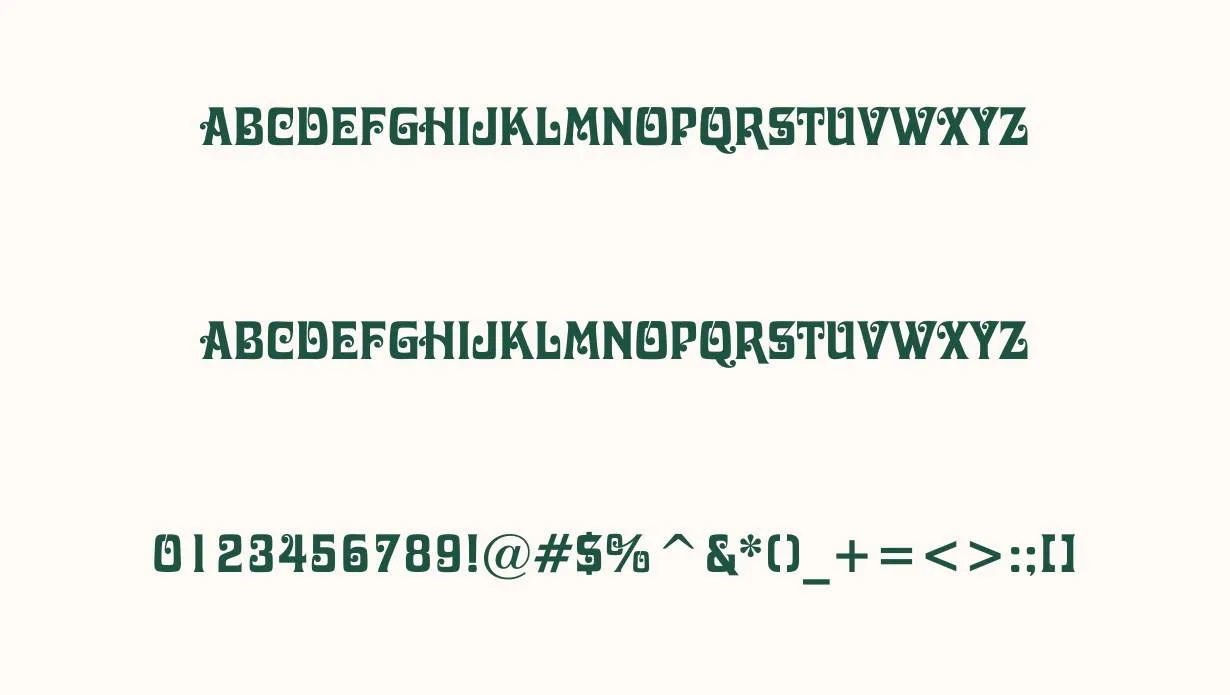
Davida Font is known for its classic and timeless style that radiates elegance and sophistication. With distinctive letterforms and serifs, Davida Font is a flexible option for various design needs. Whether it’s for editorial layouts, branding materials, or formal invitations, Davida Font brings a refined and enduring quality to typography.
Its carefully crafted details contribute to a polished appearance, making Davida Font an excellent option when you seek a typeface that combines traditional charm with a touch of modernity. The balanced proportions and legibility of Davida Font ensure that it remains a reliable choice for conveying a sense of class and grace in your projects.
| Name | Davida Font |
| Designer | David Levy and Adrian Schroeter |